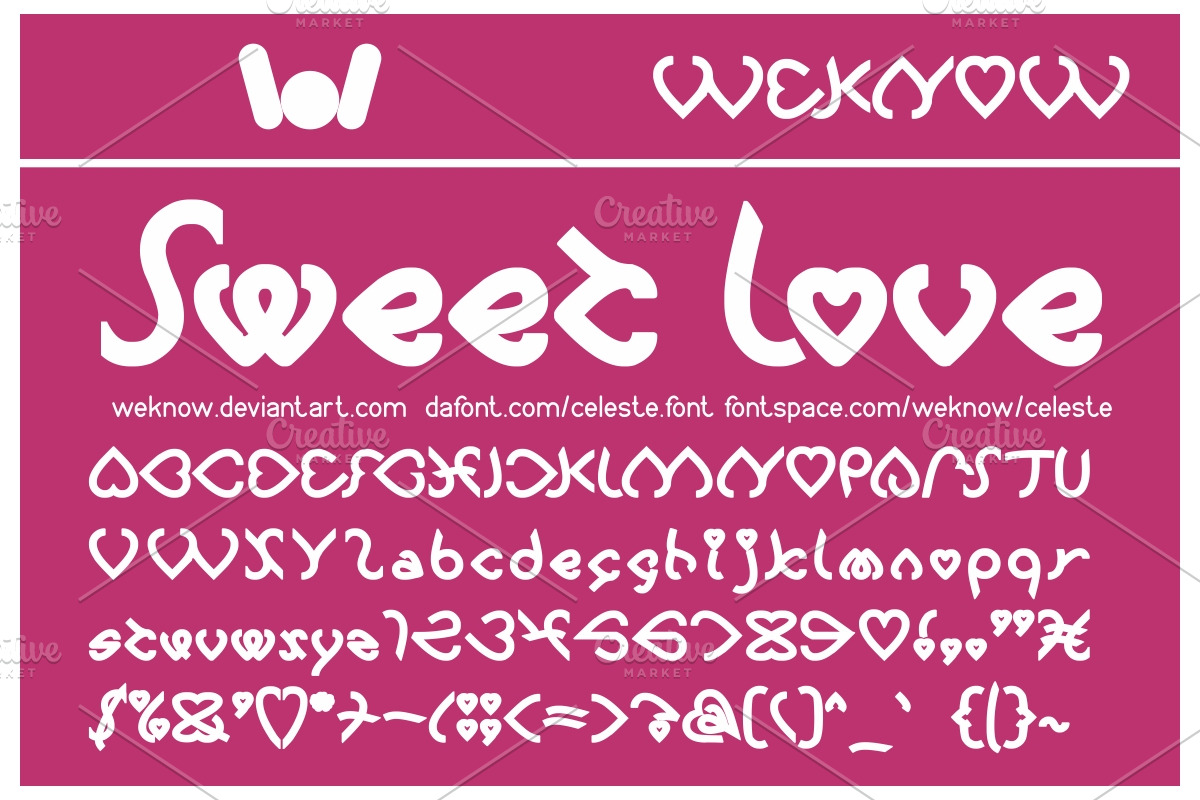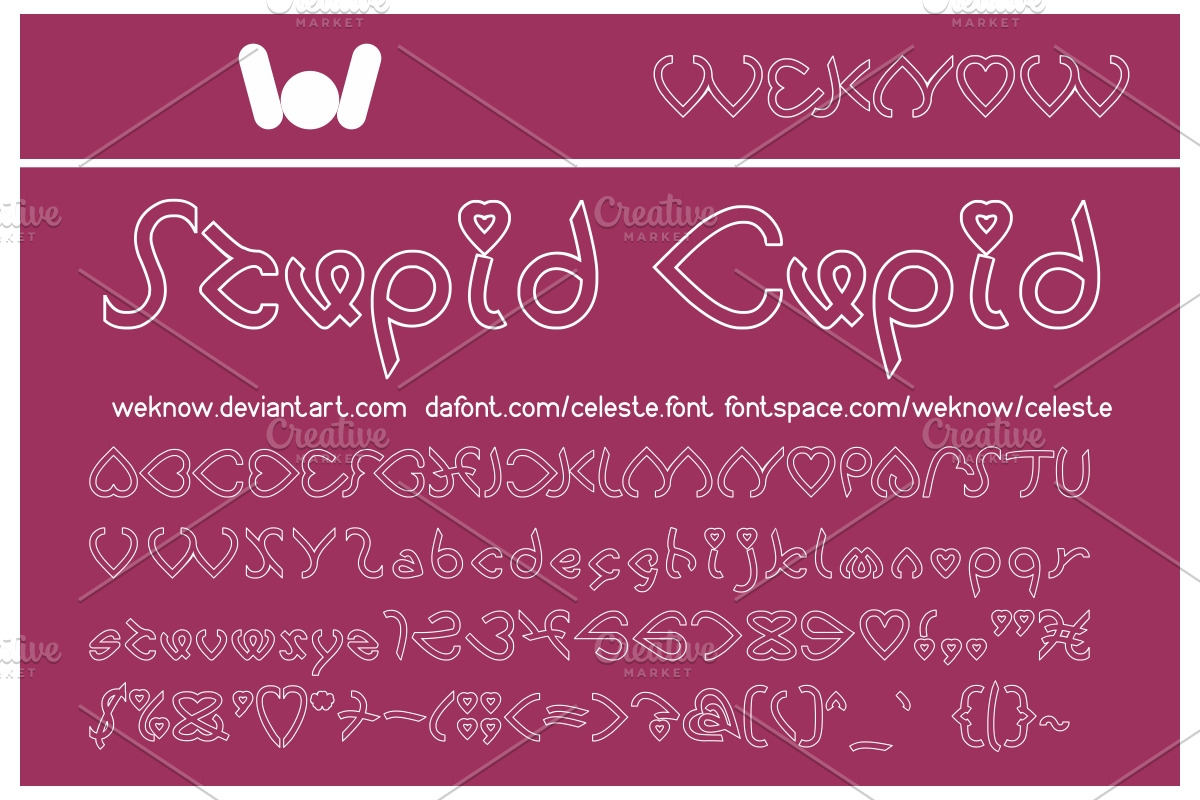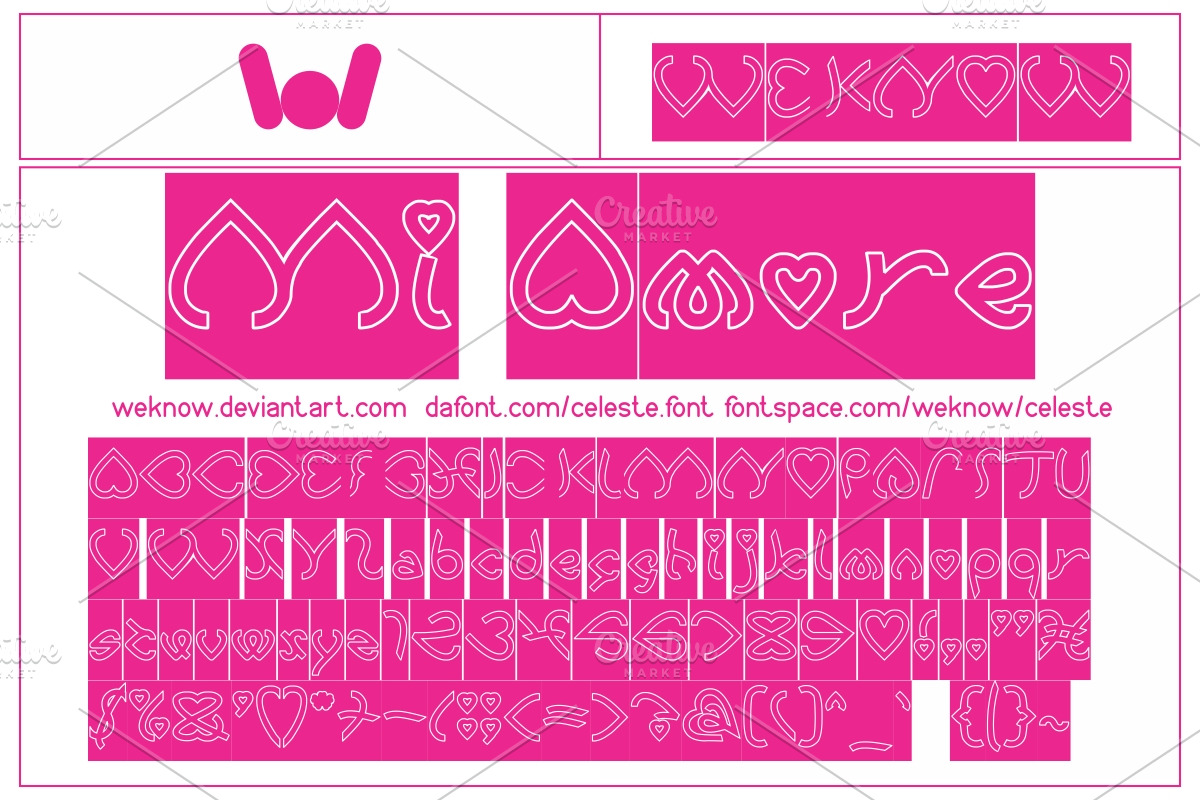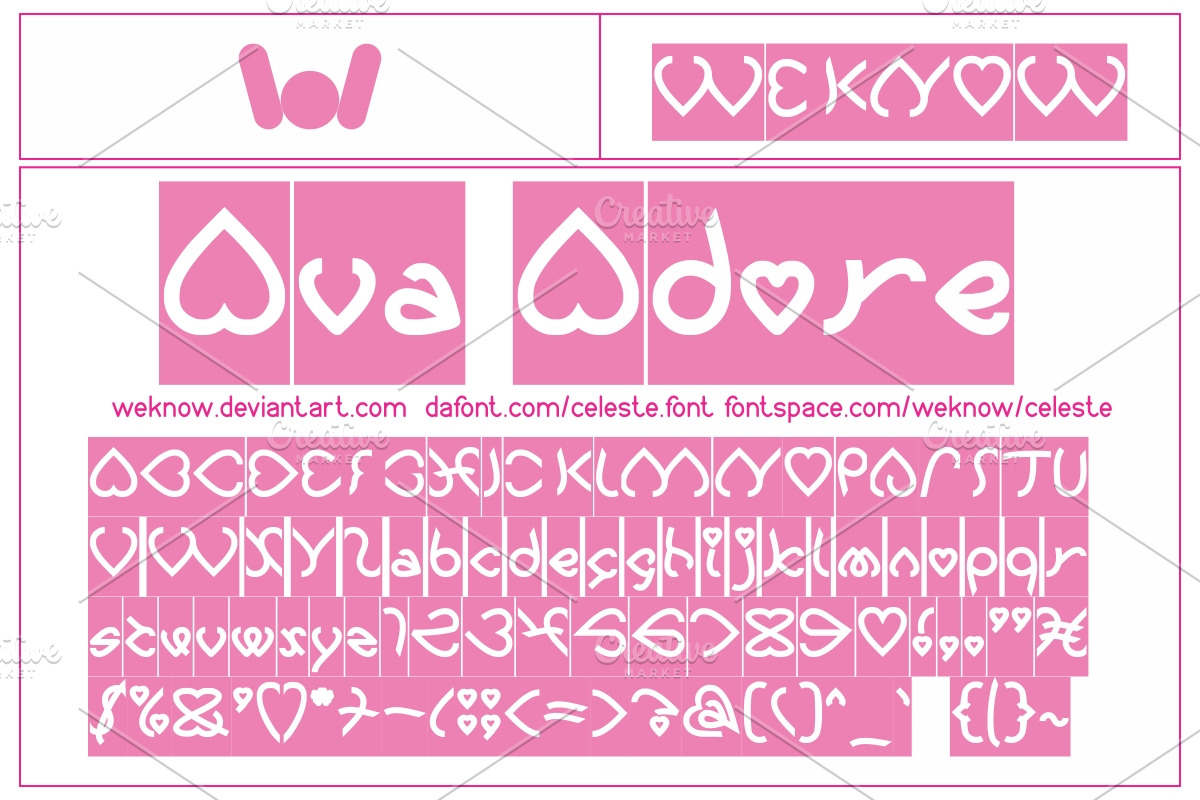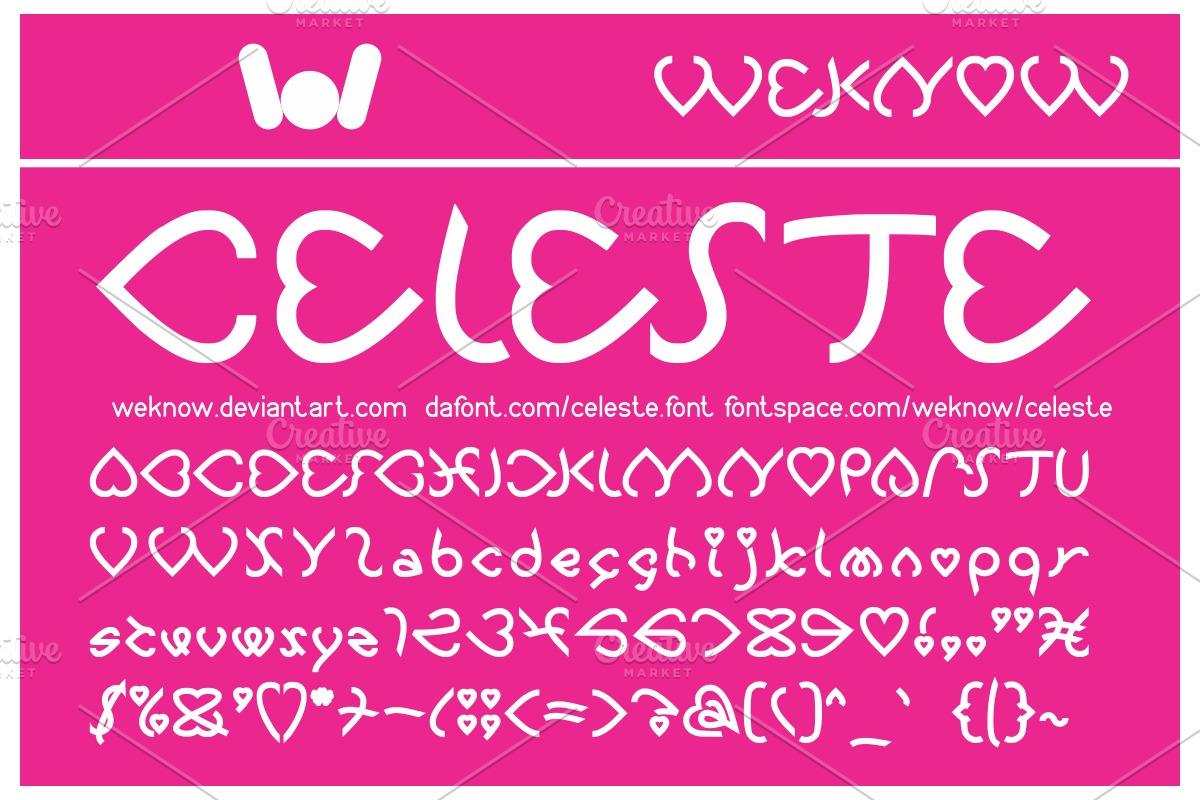
celeste font
available style: CELESTE-BOLD, CELESTE-Hollow, CELESTE-Hollow-Inverse, CELESTE-Inverse
Why celeste font is worth a look
celeste font by weknow fits naturally into Branding, posters, packaging, typography.